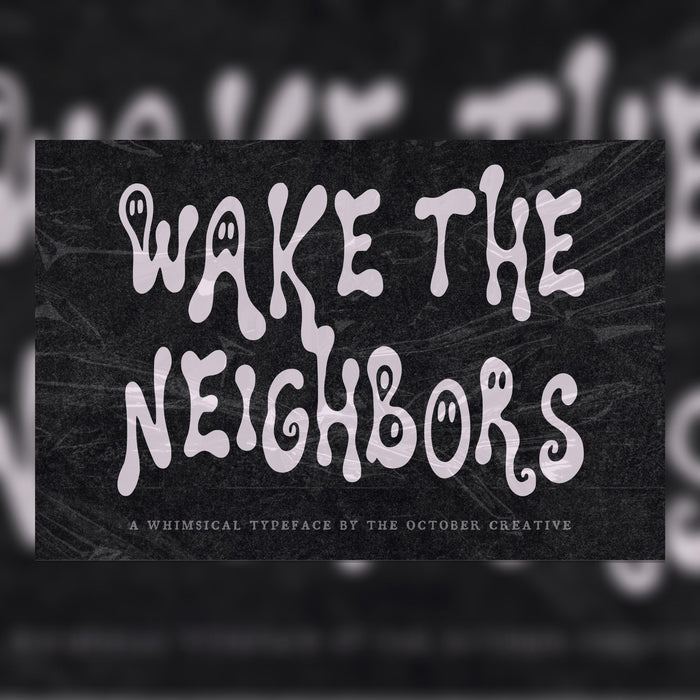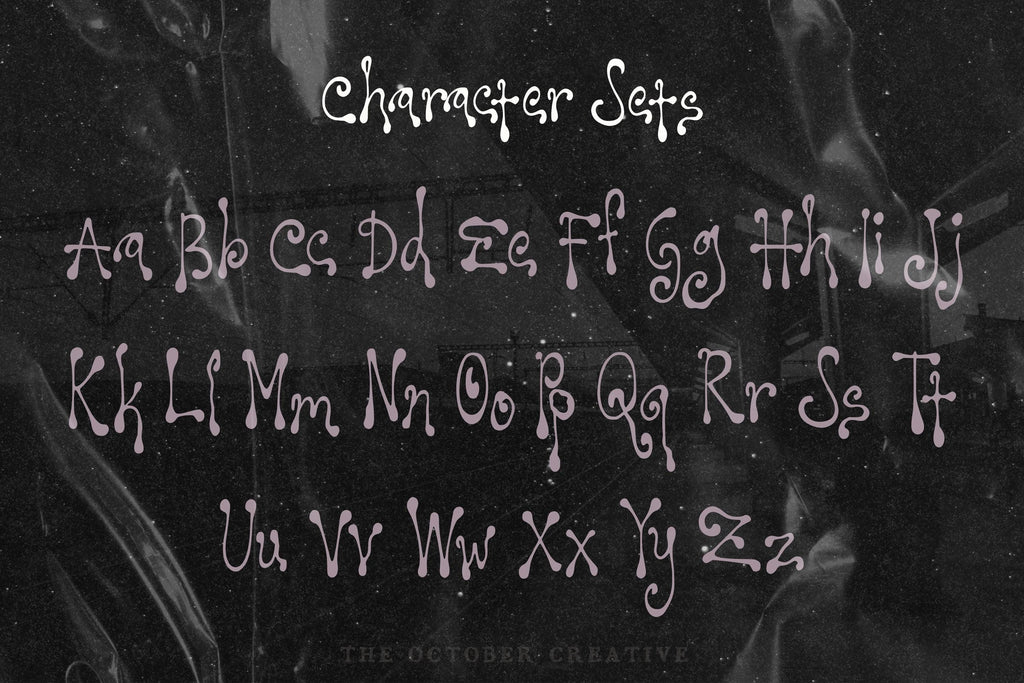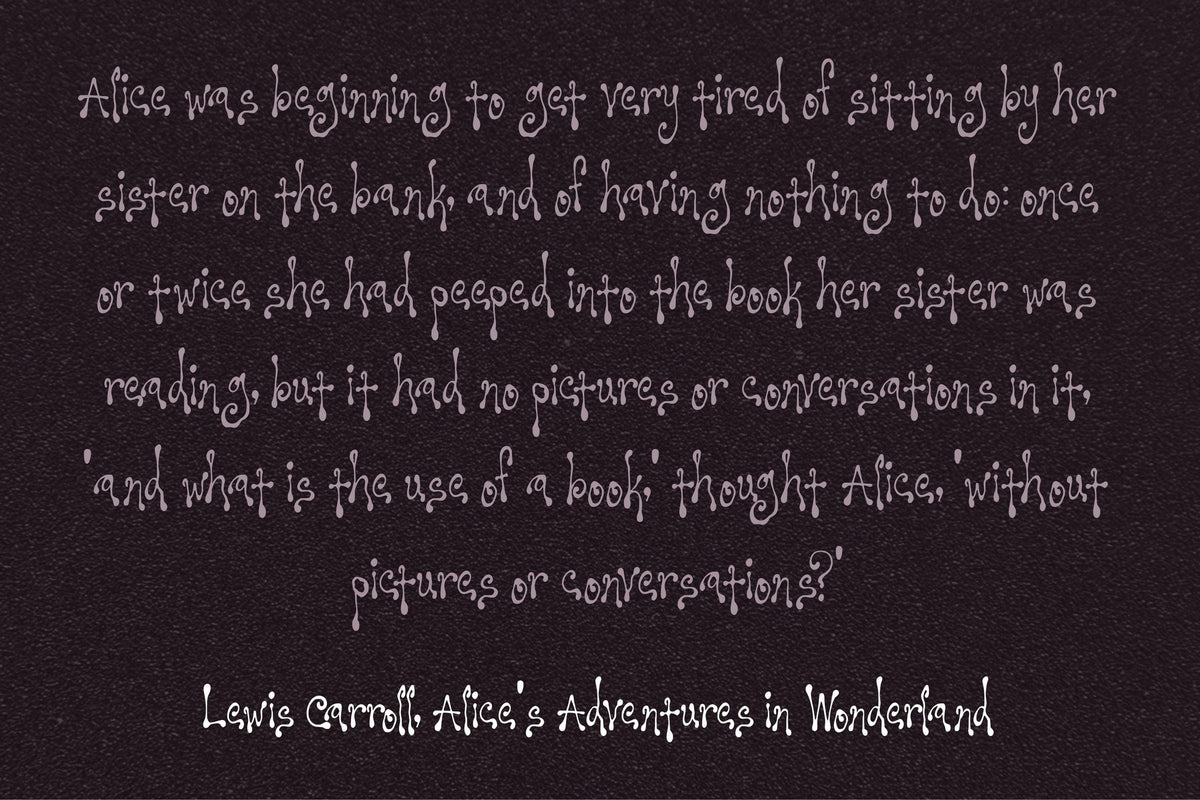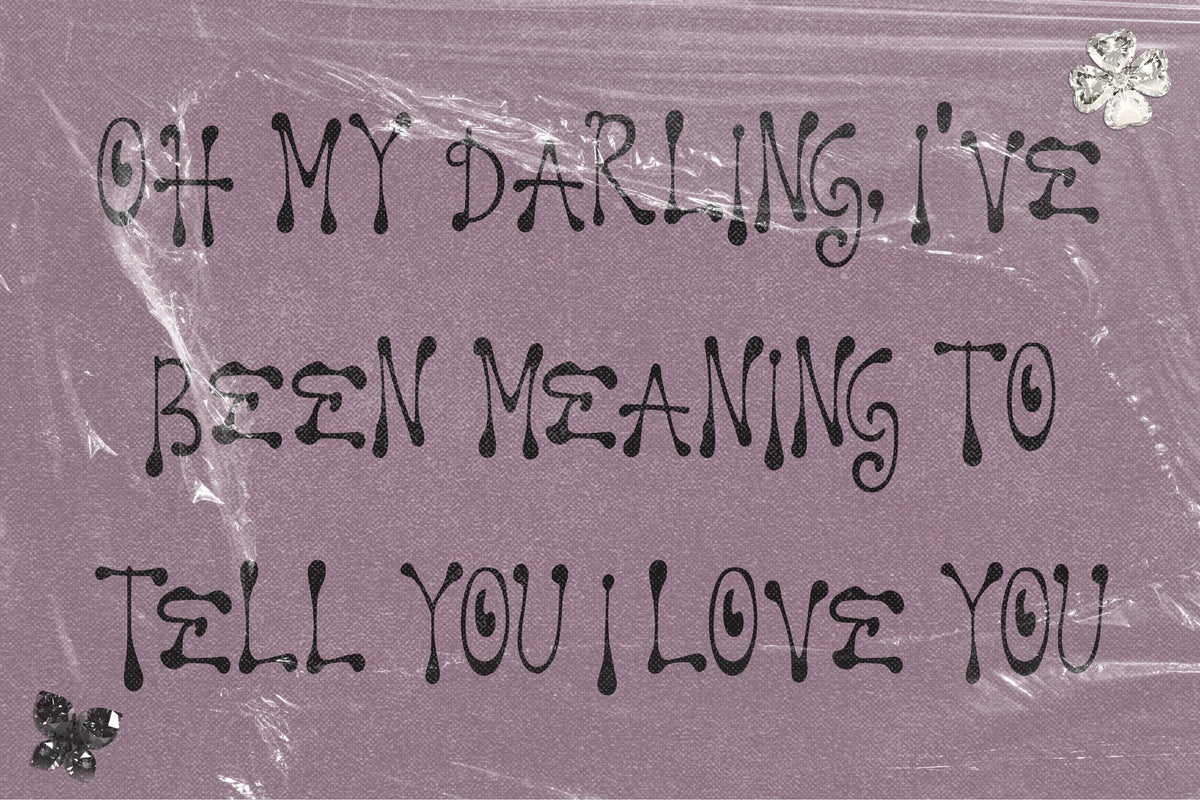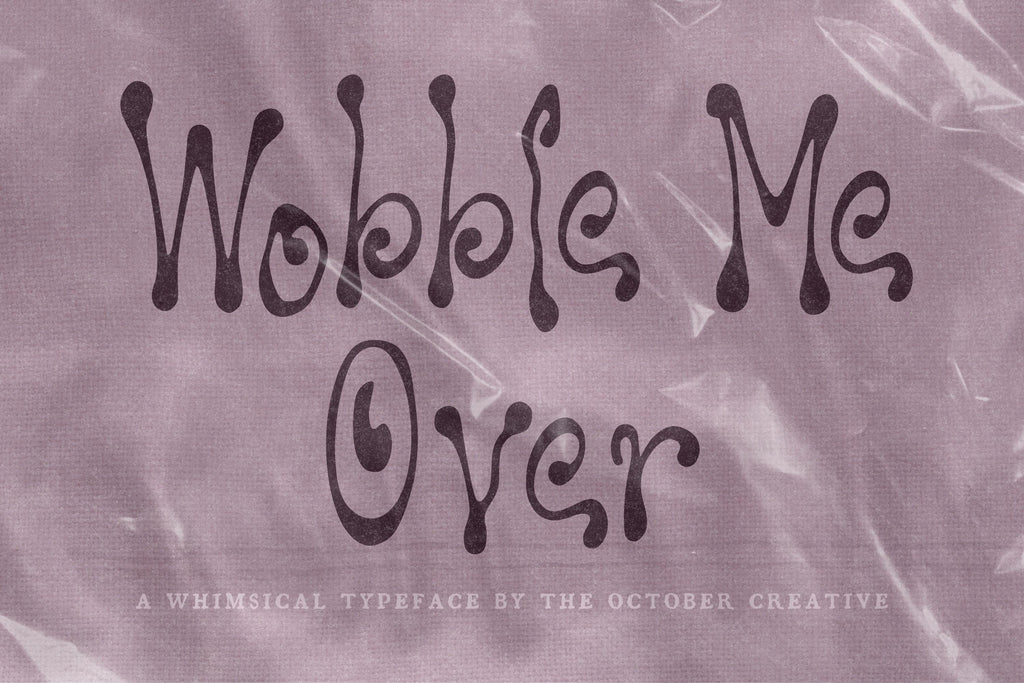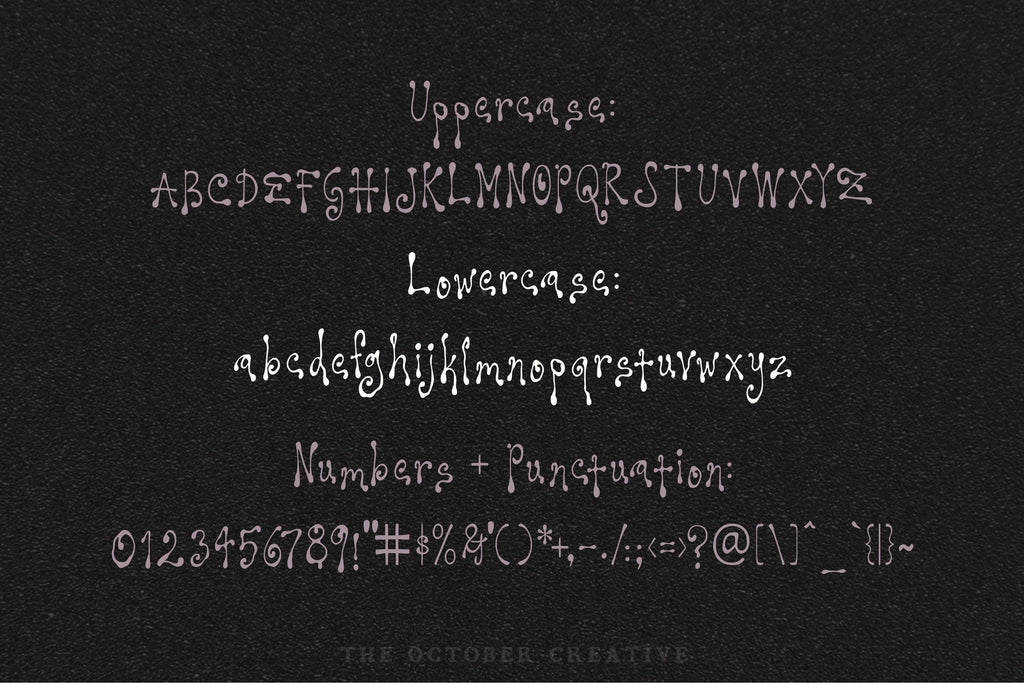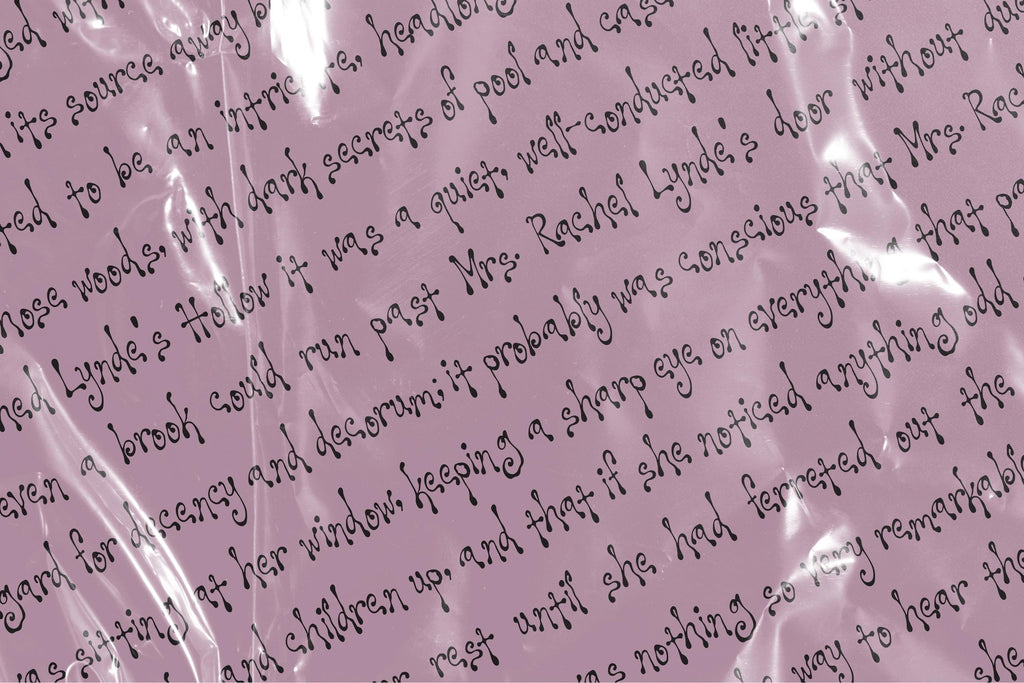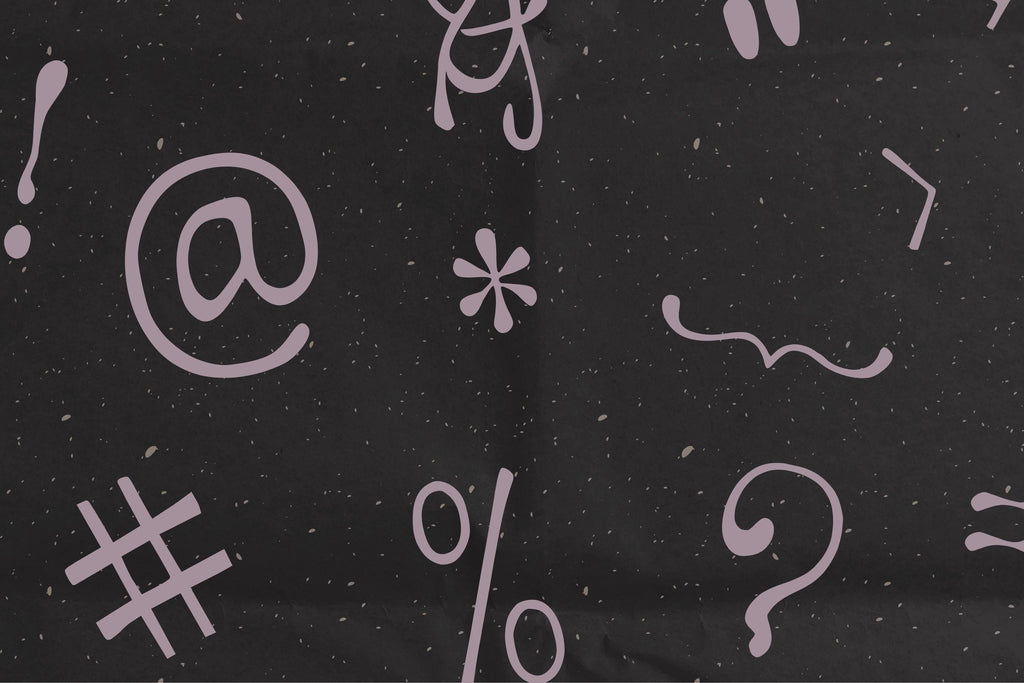
Wobble Me Over Font
Wobble Me Over puts a cheerful wobble into bold, rounded letters. Use it for children's party invitations, birthday signs, and playful stickers where a perfectly straight line would spoil some of the fun.